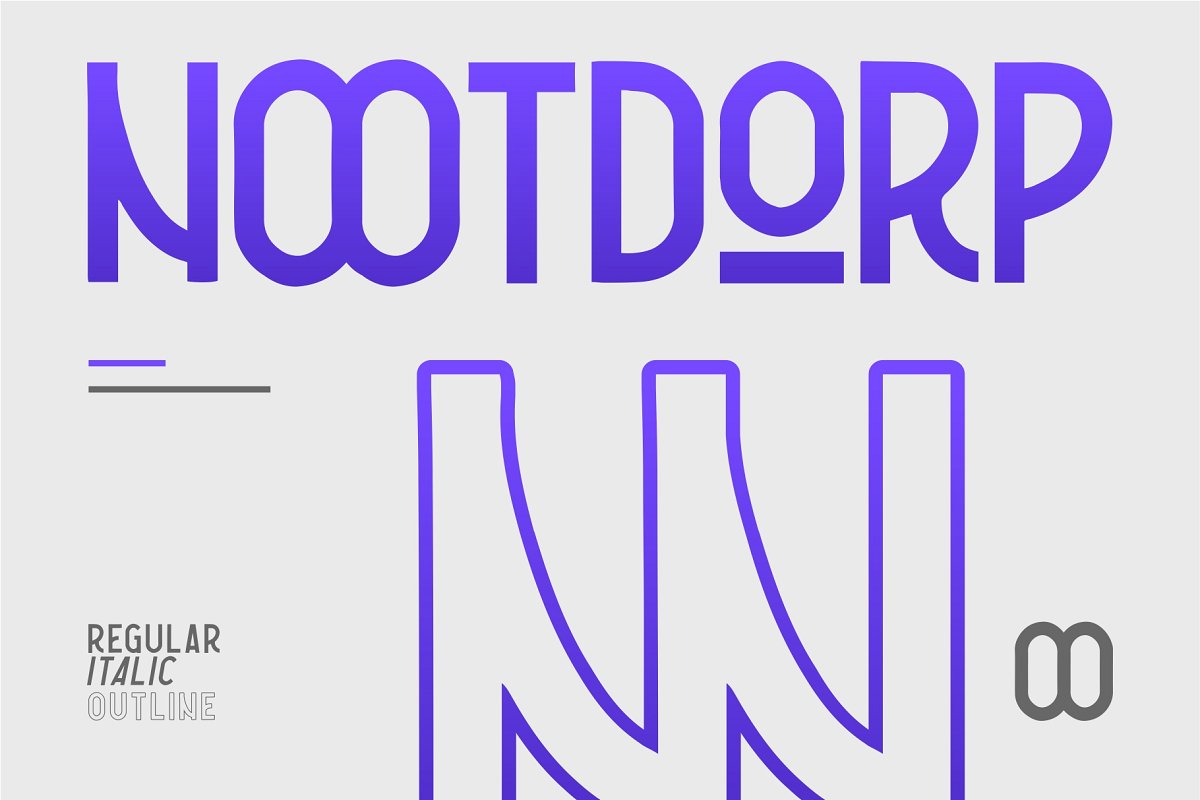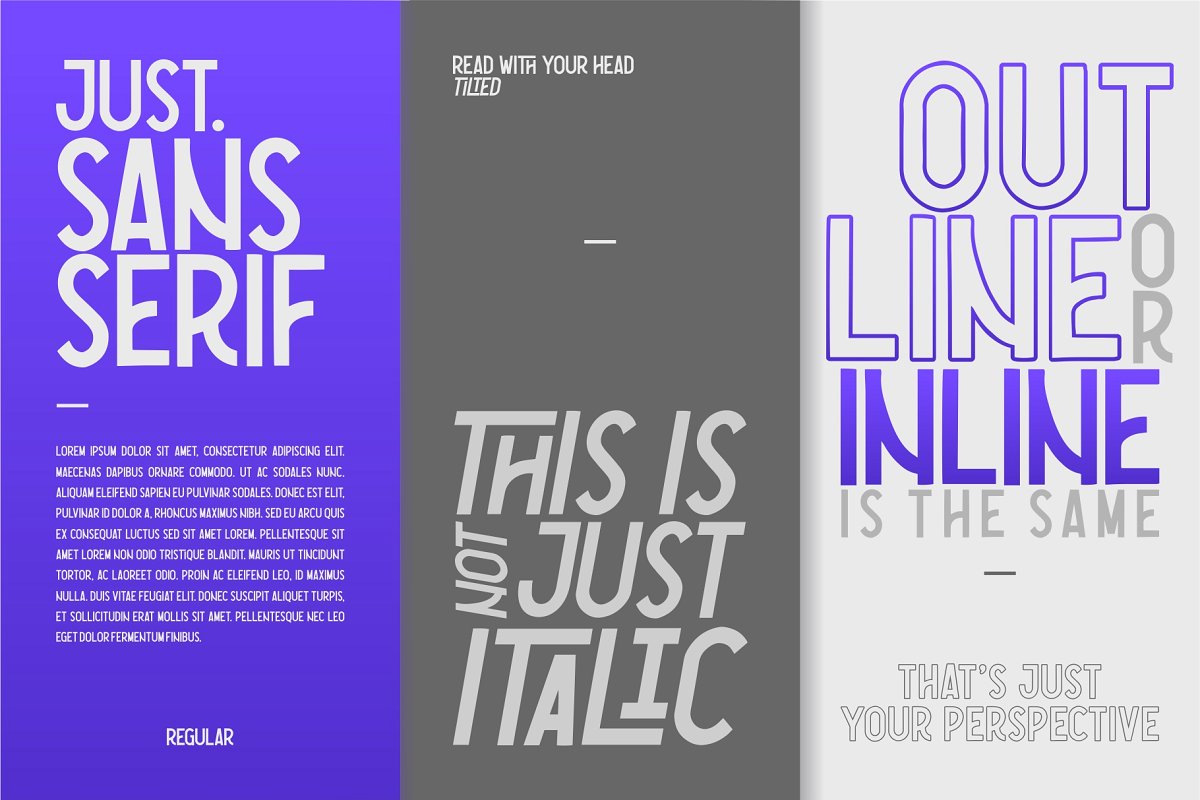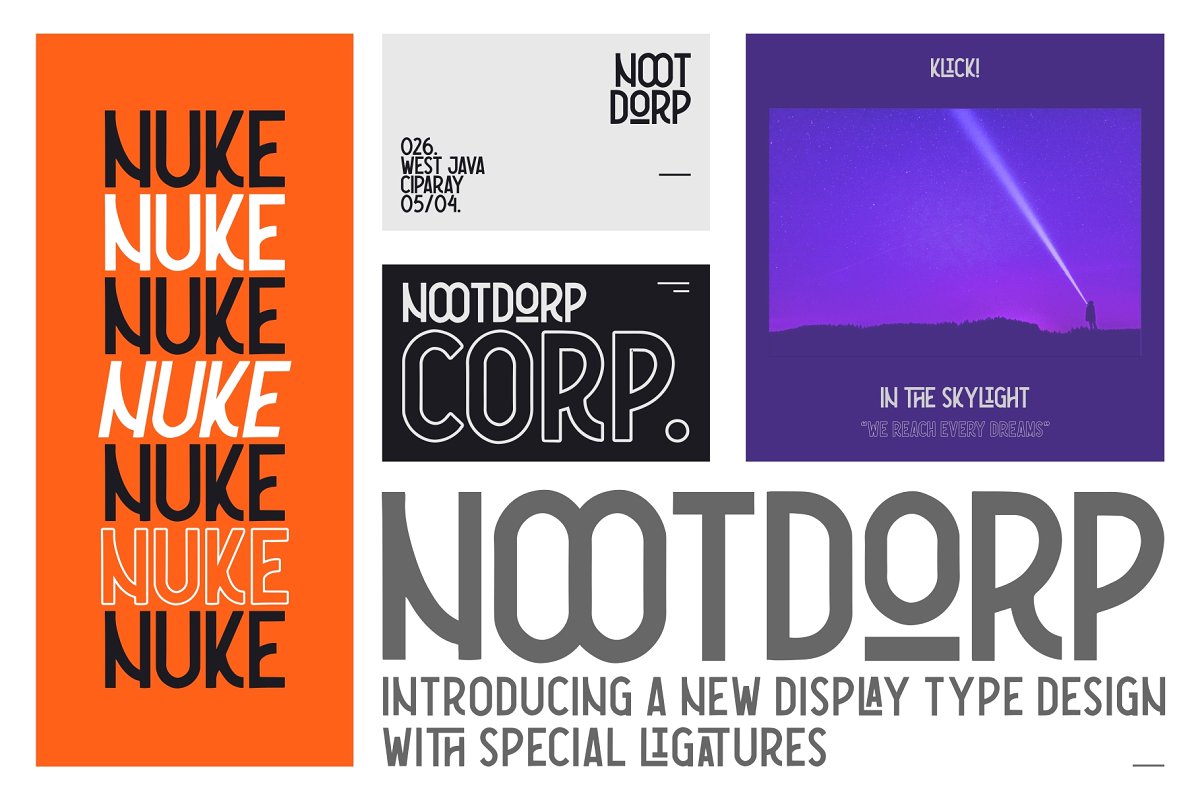
Nootdorp Sans Serif Font
Welcom to NOOTDORP – Sans Serif
Inspired from modern sans and powerfull typeface is born Nootdorp. The name from one place on Germany: Nootdorp. This font very versatile for branding, label, packaging, logotype, website, header, headline, magazine, and many more the great work. Included on Nootdorp with 3 style: Regular, Italic, and Outline. So, very good for pairing the fonts!